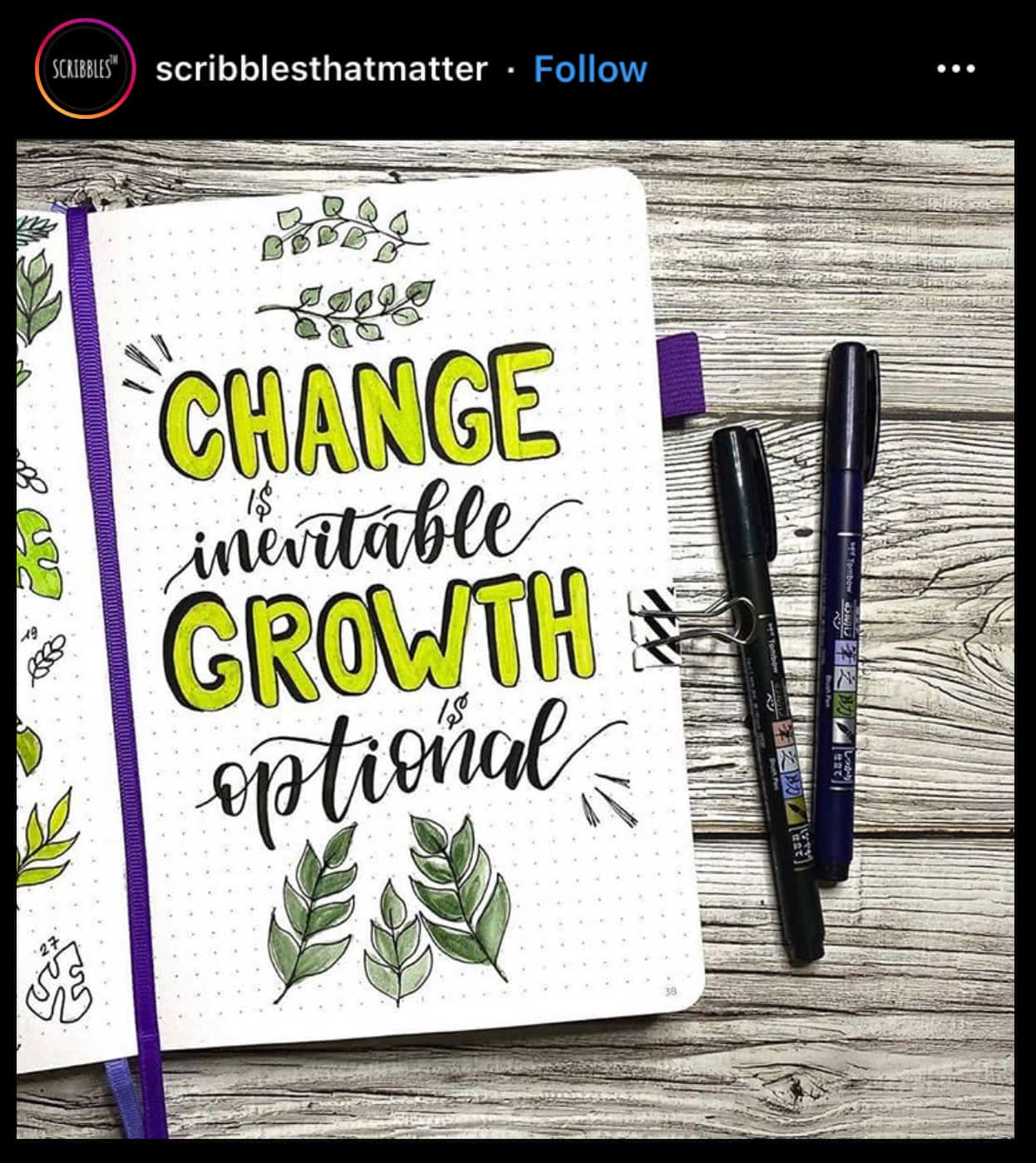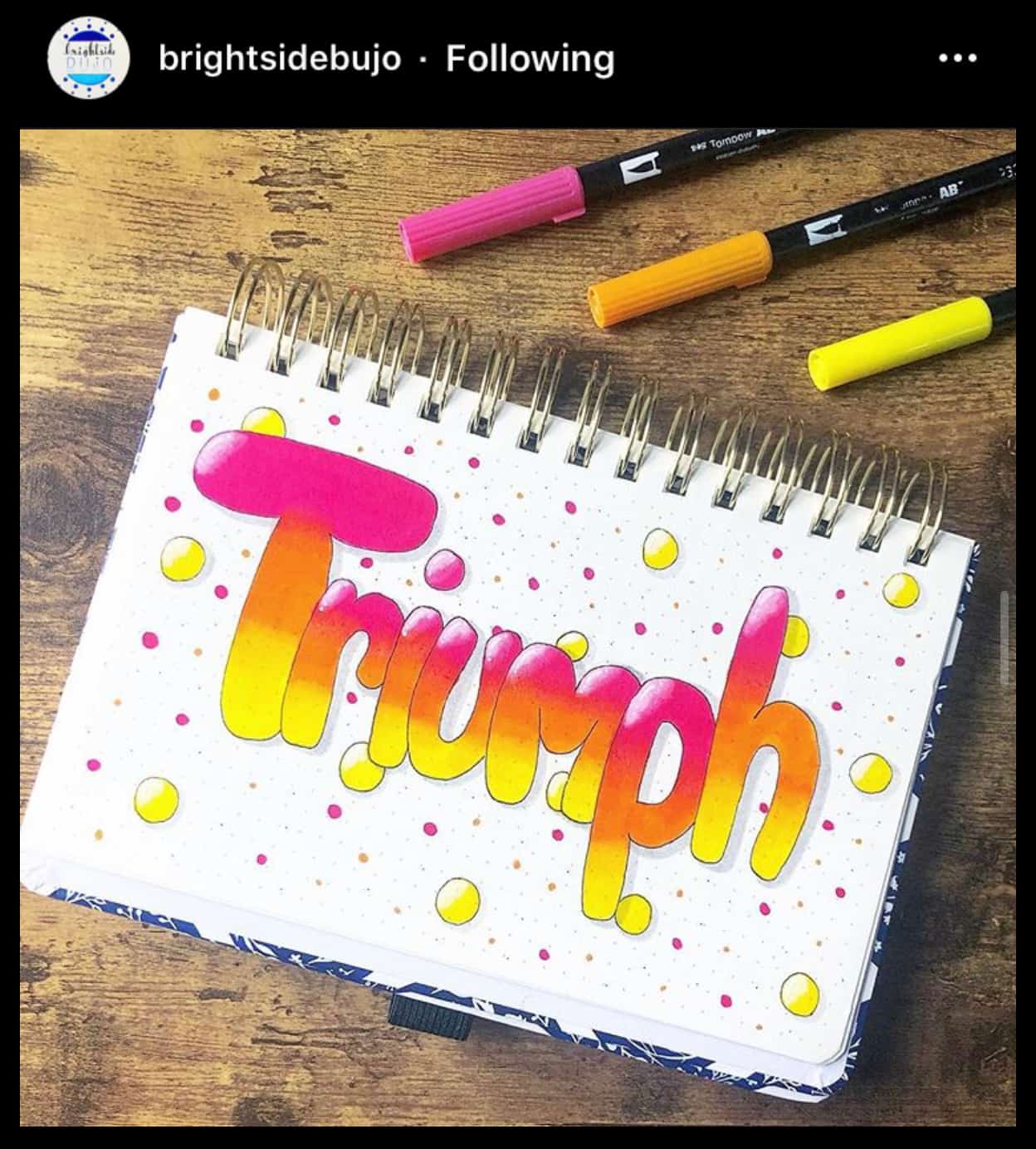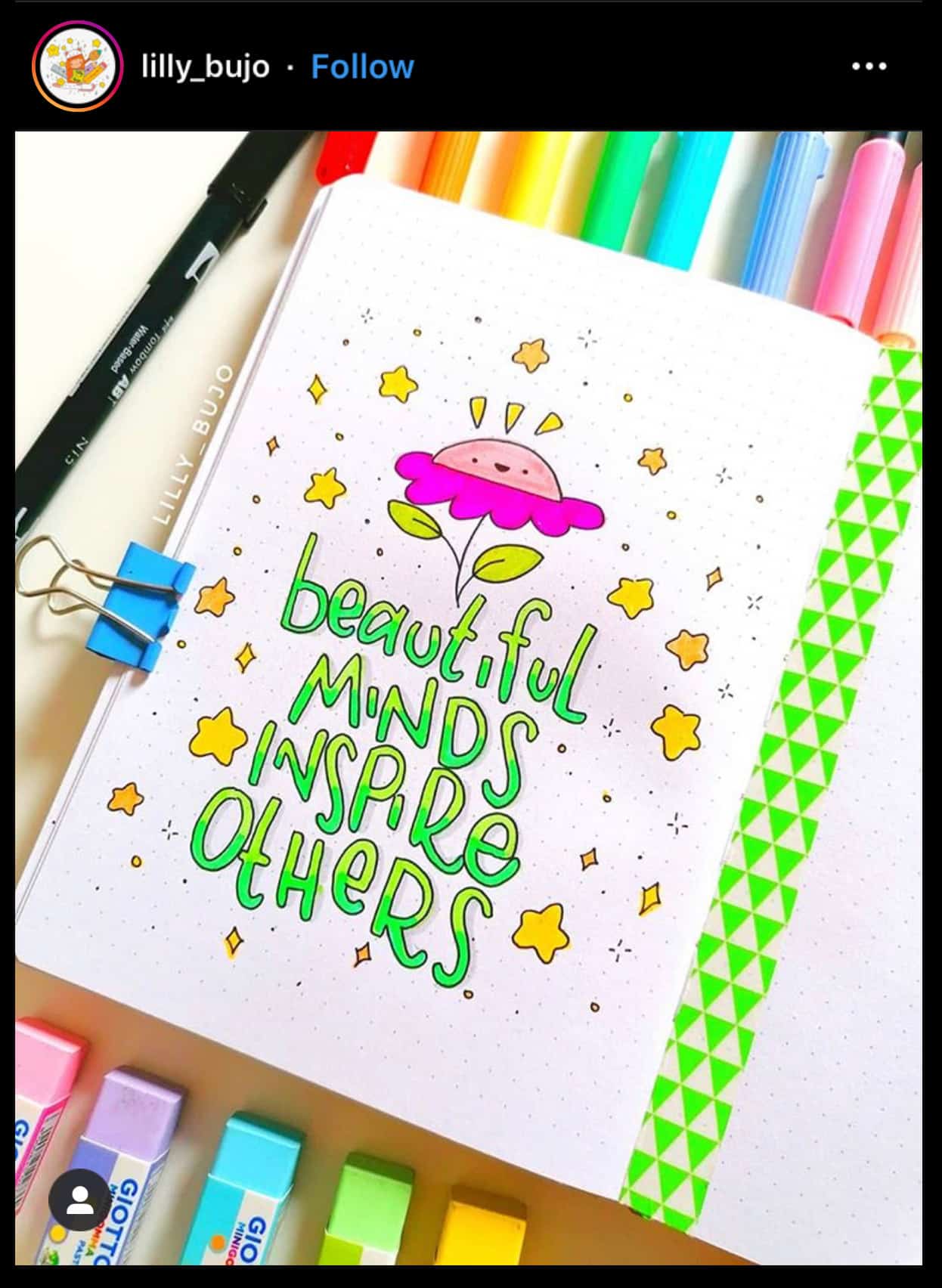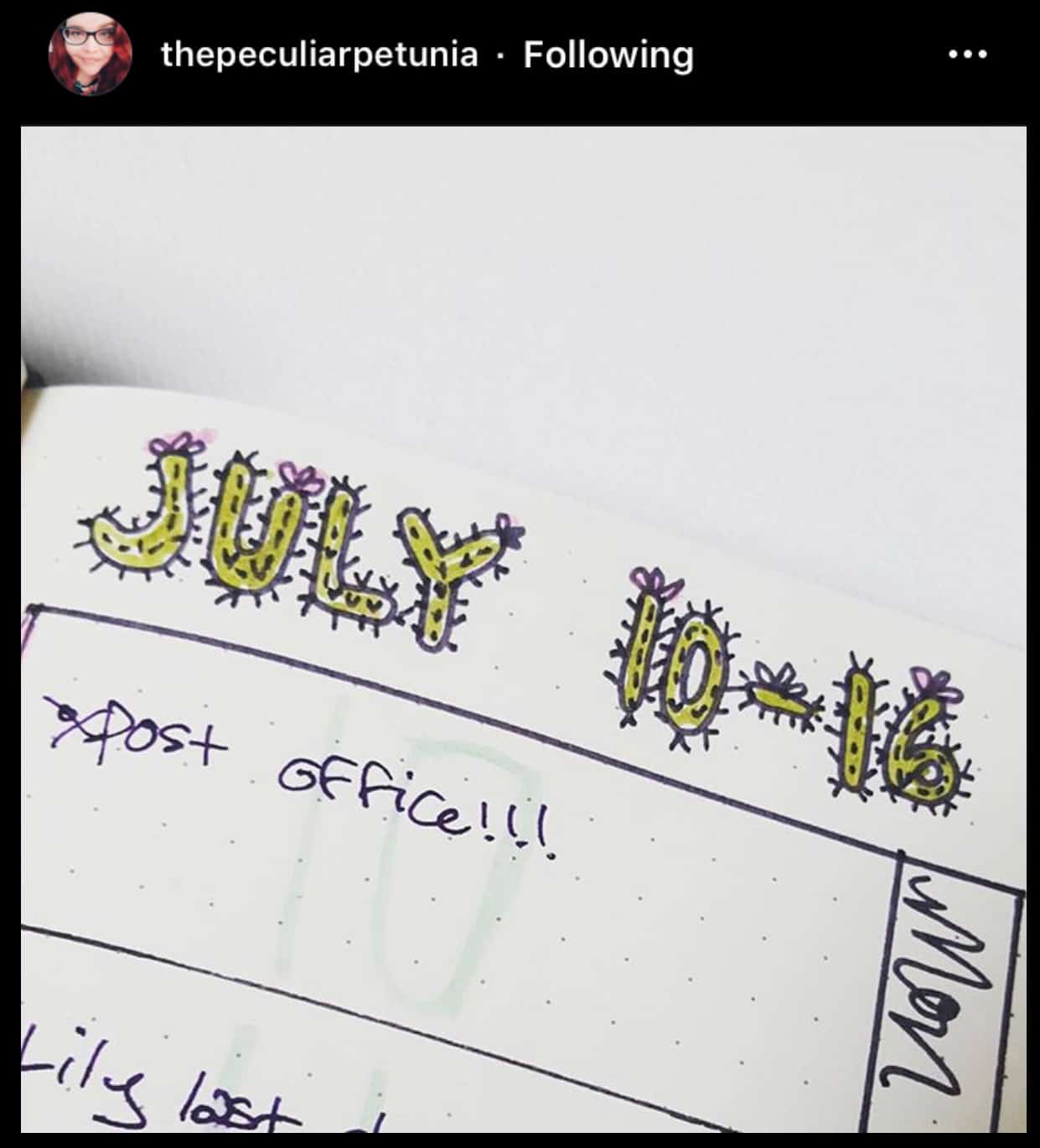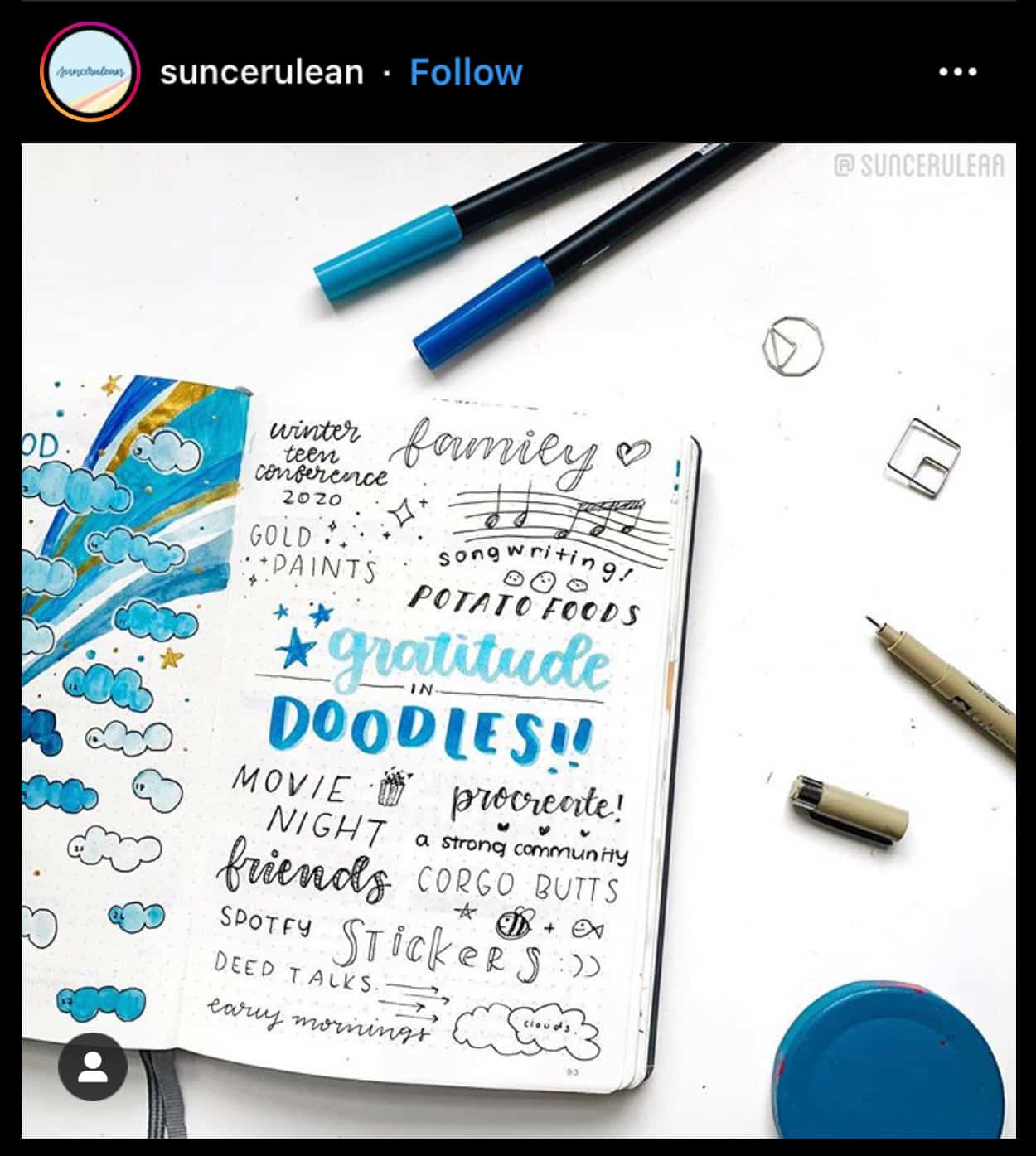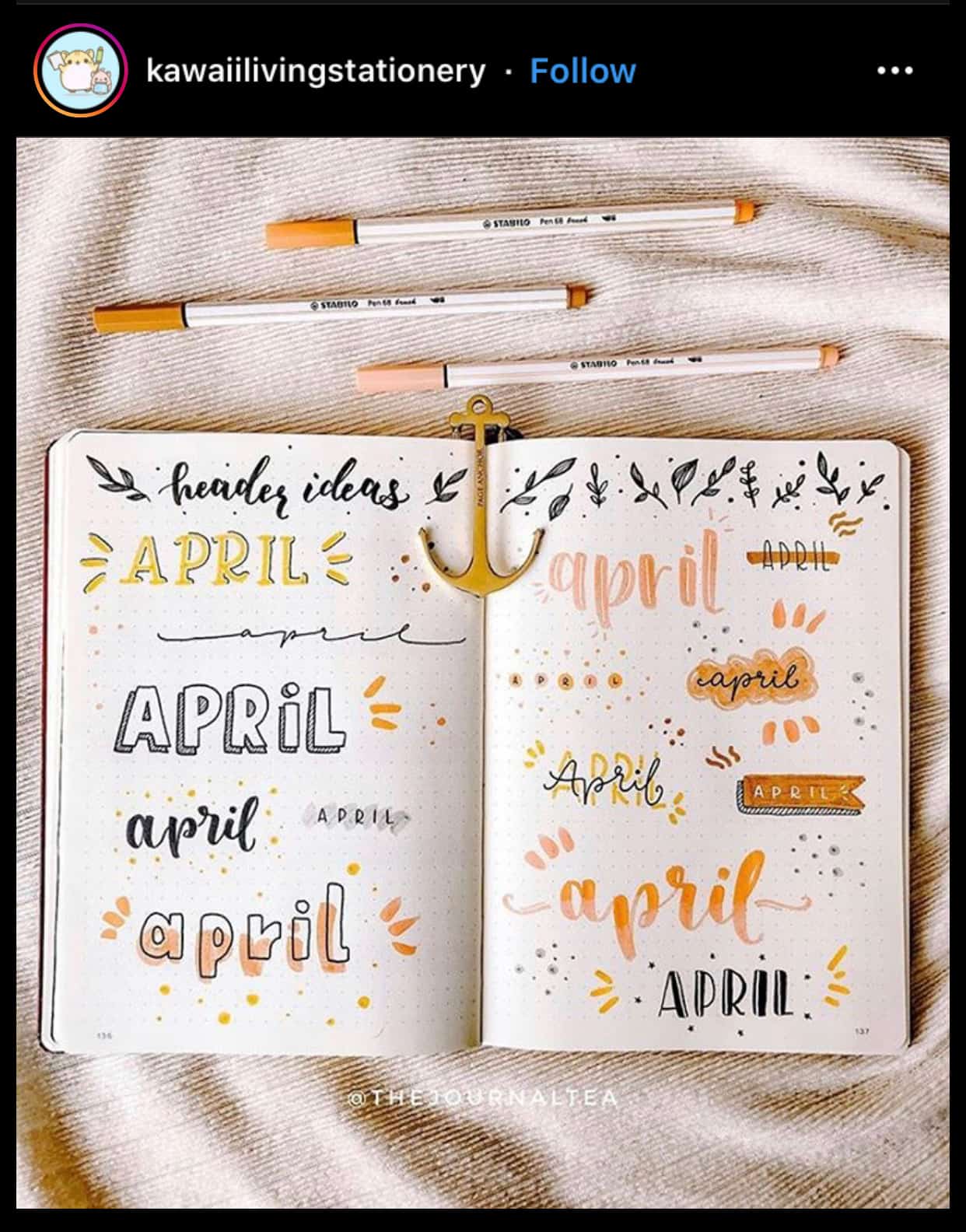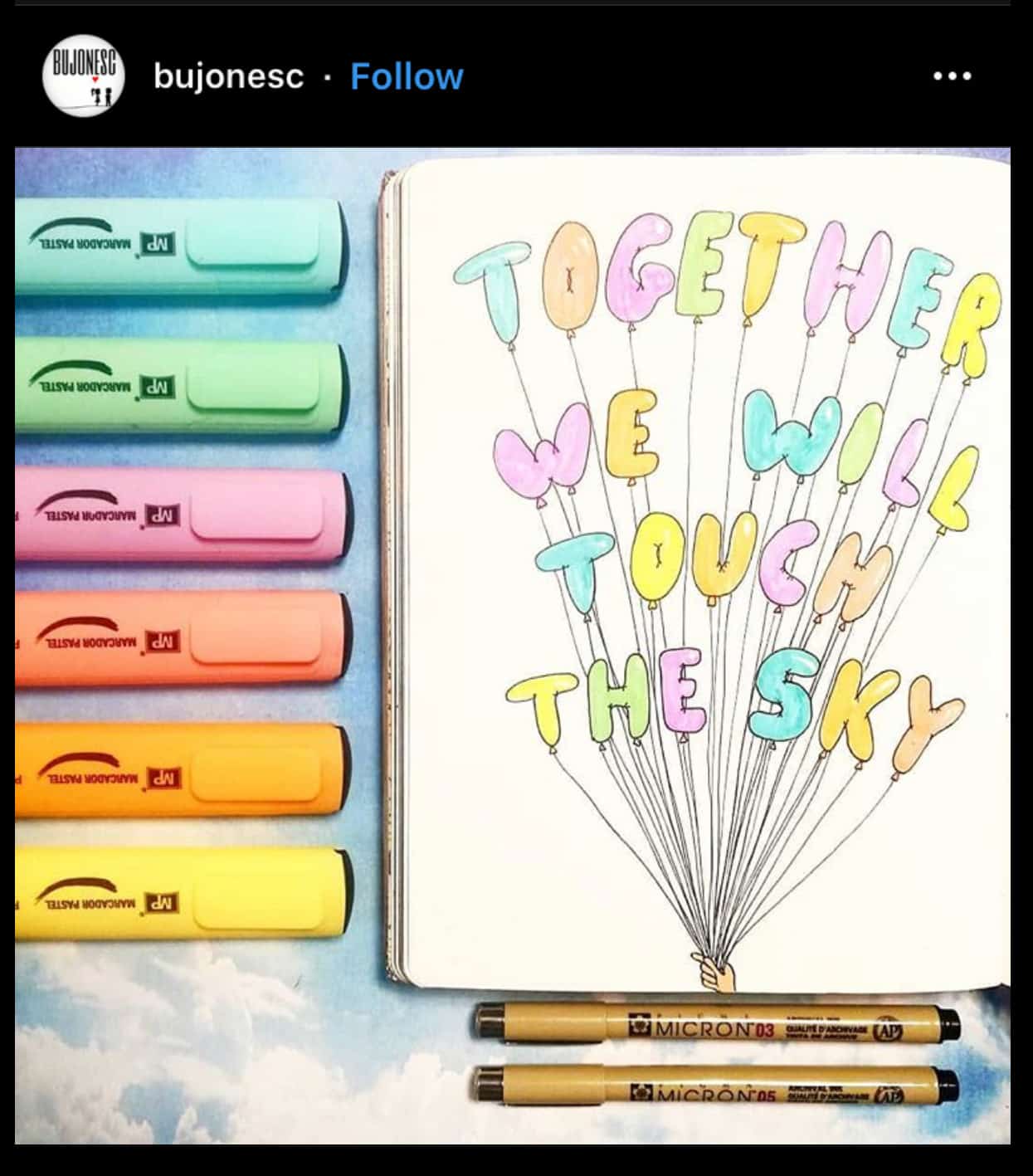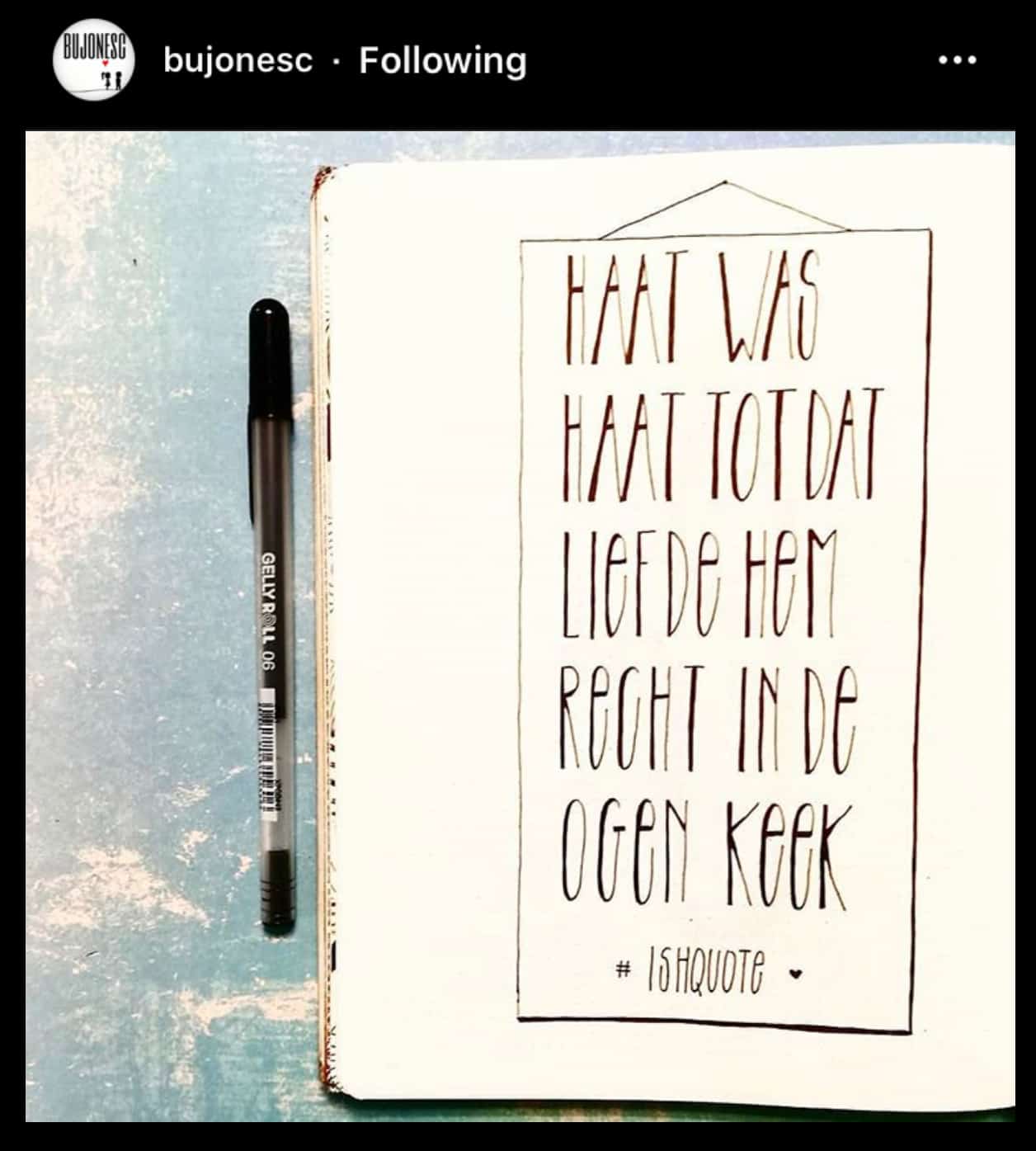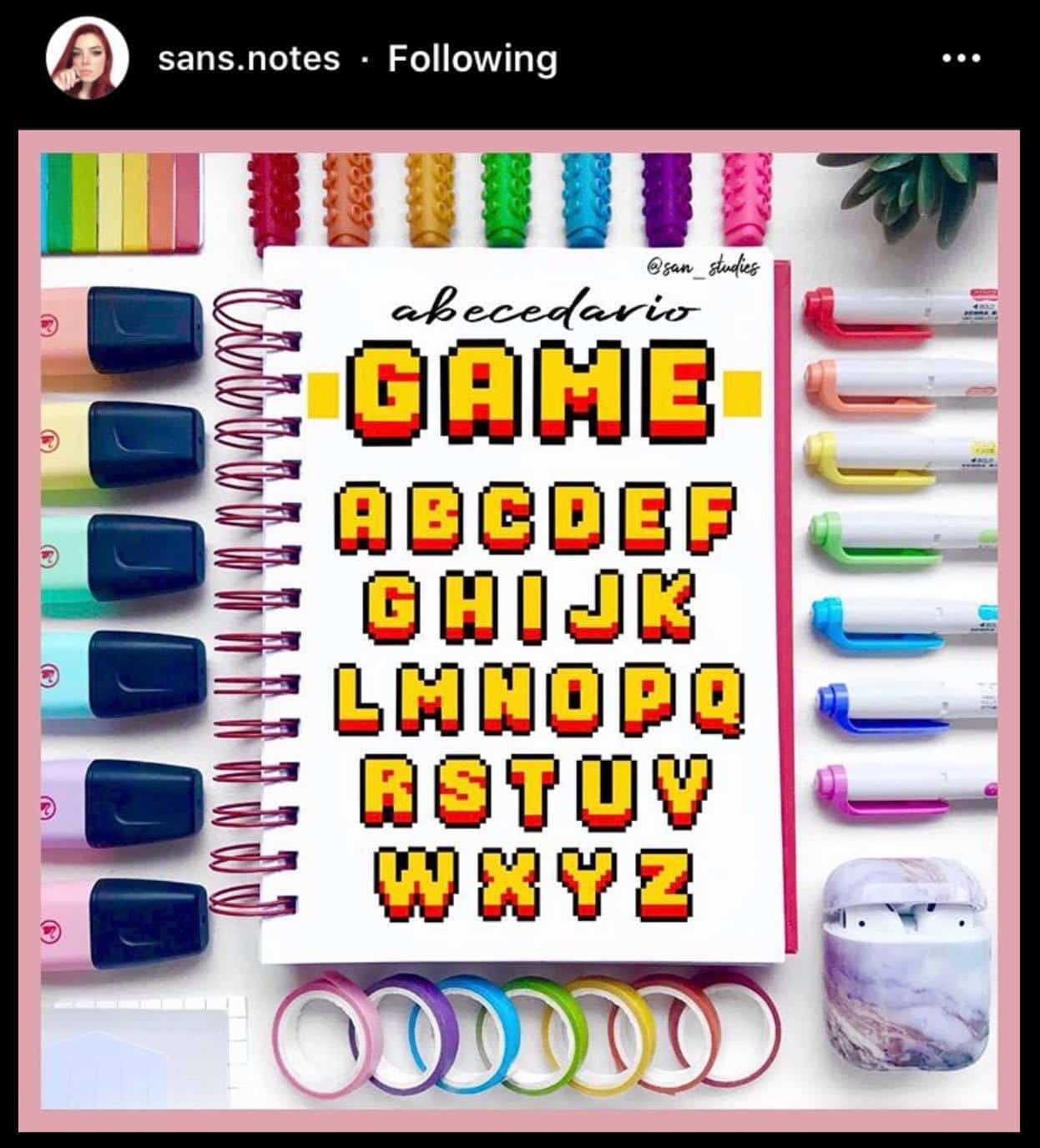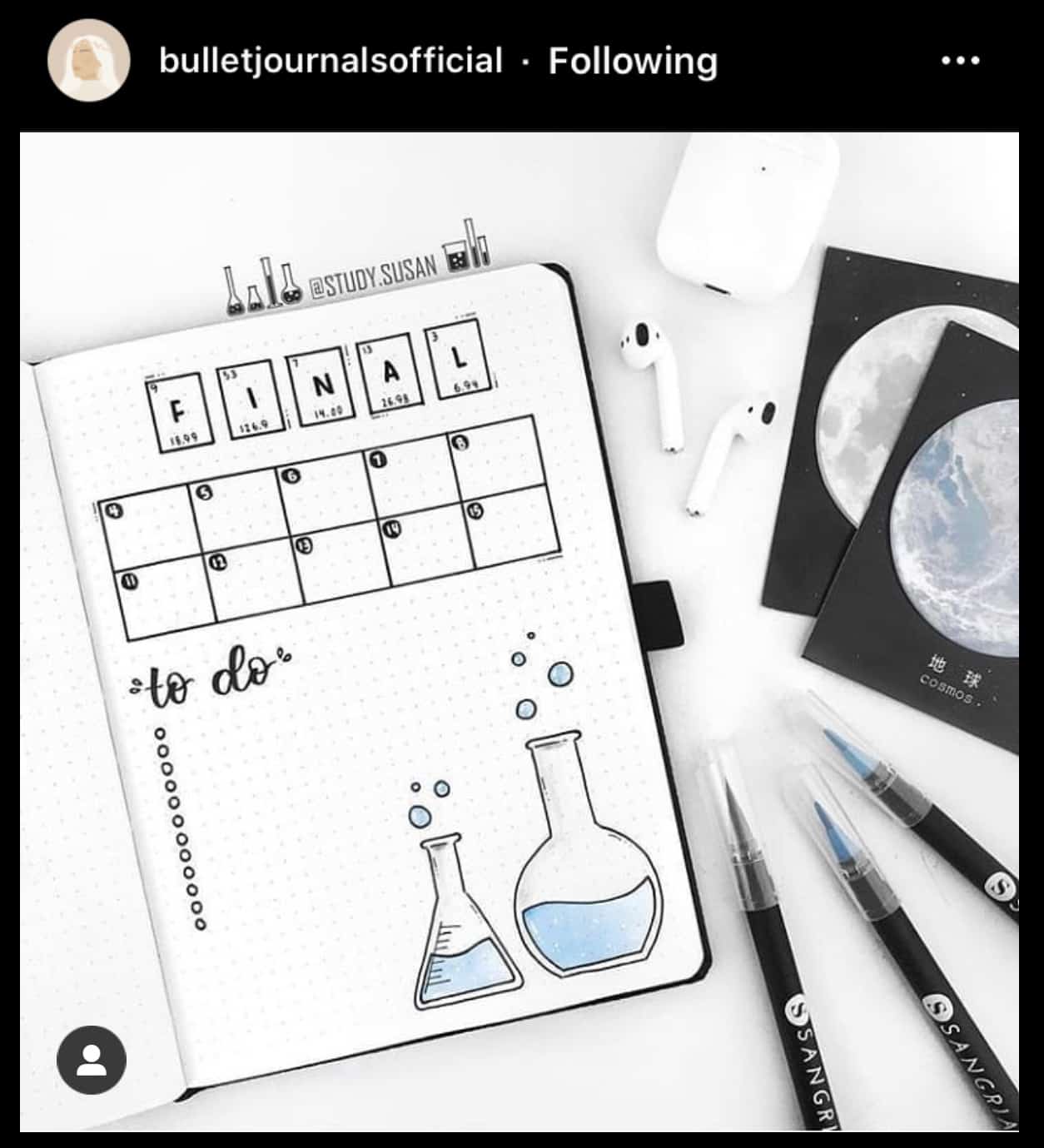
One of the best ways to add more personality and flair to your bullet journal notebook is to use different fonts. You can change up the colors, sizes, and bullet journal lettering, and make each page unique! This is very easy to do since journal lettering requires less skill compared to doodling. There is no need to buy expensive pens to make awesome bullet journal fonts! Here are some fabulous ideas for this year.
How Can I Learn Handlettering for Bullet Journaling
Here is the thing before you try your hand at bullet journal lettering or even bullet journal calligraphy I recommend you try these super easy ways to improve your journaling handwriting.
Bullet Journal Handwriting Ideas:
For those of you who dislike making mistakes, use a pencil first then you can trace a pen over the top. A must for bujo fonts enthusiasts.
Another trick is to print off bullet journal calligraphy fonts that you like and then trace over them. It will help you perfect your journal lettering.
Pick easy fonts to write to begin with. This will help you gain confidence when it comes to selecting your next font ideas.
Pretend you are in elementary school and practice your bullet journal alphabet.
Pick cute bullet journal fonts that you like and watch videos on hand-lettering. Check out Pinterest or Youtube for these videos.
Beautiful Bullet Journal Fonts You Can Practice Today
1. Simple Serif
In typography, a serif is a small line attached to the end of a stroke in a letter. Some people call it the typewriter font – a good way to provide your headers and cover pages some authority.
The best thing about it though is that it’s so easy to make! You just need to write the word carefully, while keeping the lines as straight as you can.
Not familiar with color gradients?! Even if you think you don’t know this journal lettering technique, I’m sure you already saw it somewhere else.
Colors are an amazing way to improve your work, and doing the gradient effect can take it to the next level.
First, choose two colors that go well together. I suggest taking one darker and one brighter color for the best results. Start applying your darker tone either on top or bottom of the word. With your blending pen start gently blending the two colors. Another incredible bujo fonts idea!
Block letters are never boring and are remarkable bullet journal elements. For me, these block letters are perfect for headers, cover pages, and quotations.
The dot and grid, and square bullet journal paper make it easy to draw block letters. Block letter bujo fonts give more attention to titles. It doesn’t look fancy, so anyone can do it.
Whether you love cooking or just someone who enjoys eating, there’s no denying that food brings out our quirky side. Do you know what else comes with good food?
Perfectly designed bullet journal fonts! While eating fruits as dessert after a hearty lunch, design some of your BuJo pages. These bujo fonts don’t just belong in cookbooks and restaurant menus. This style also complements your food reviews or meal plans!
Christmas designs are not just reserved for the holiday season. I, myself, love making such designs in my own bullet journal to cheer up on the tiring days. Christmas-inspired bullet journal fonts can be used all-year-round.
From candy canes to Christmas trees, these techniques allowed me to work on more elaborate designs. Remember, the more fonts for bullet journal techniques you learn, the more creative you get! And here are we go with some more font ideas…
So, you love playing video games (or perhaps any other game?!)? If you love playing Minecraft or any other exciting game, use it as an inspiration to come up with wonderful bullet journal fonts. It takes a bit of creativity to accomplish this one! Take the time to practice these font ideas.
If the block letters appear challenging for you, why don’t you start with half block ones?
It’s a lot easier to get the letters all the same height and size compared to block letters. You can even use an ordinary, cheap pen if you want! Yup you will still be the master of bujo fonts aka bullet journal lettering.